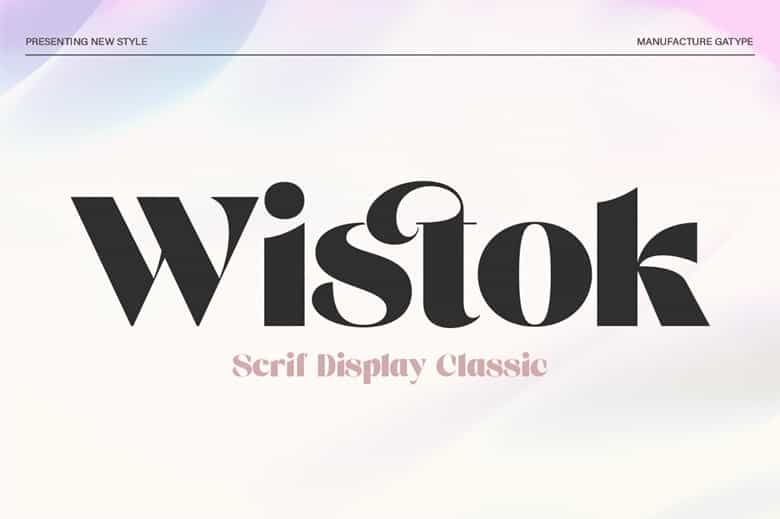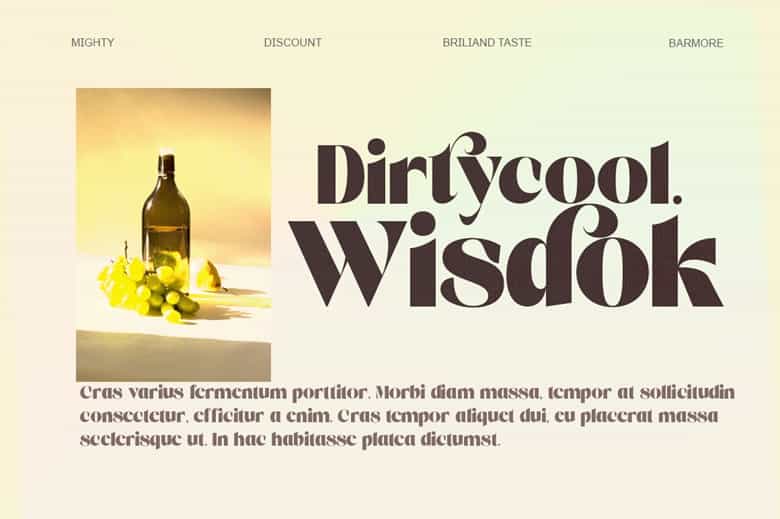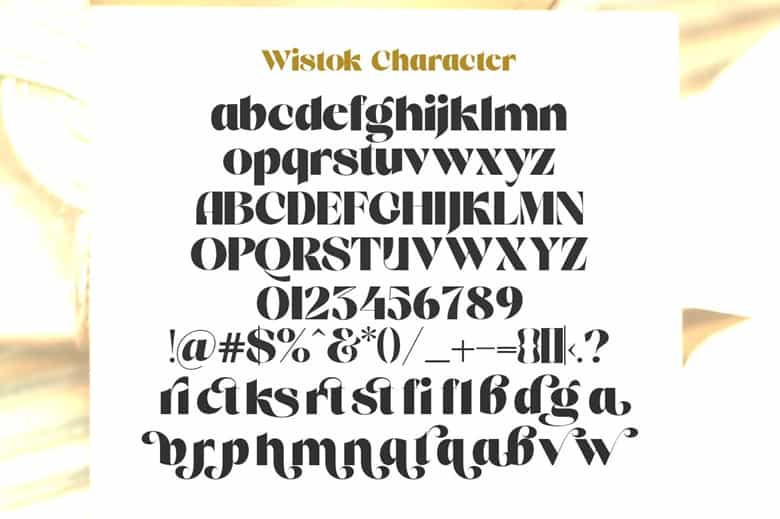
Discover Wistok Font, part of the Serif Display collection—a versatile and unique font perfect for adding a personal touch to your projects. Download it for free and enjoy crafting designs with style, from invitations to social media posts. This font is available exclusively for personal use, giving you the freedom to create without limits. Unlock your creativity with Wistok Font today!
Wistok is a clean and elegant traditional typeface especially crafted for use in display purposes for texts, logos and other designs.. Having clean, smooth lines and fine distinctive embellishments, its letterforms portray a classic feel. Specifically suitable for environment which requires a universal yet polished look, Wistok gives your project a touch of elegance.